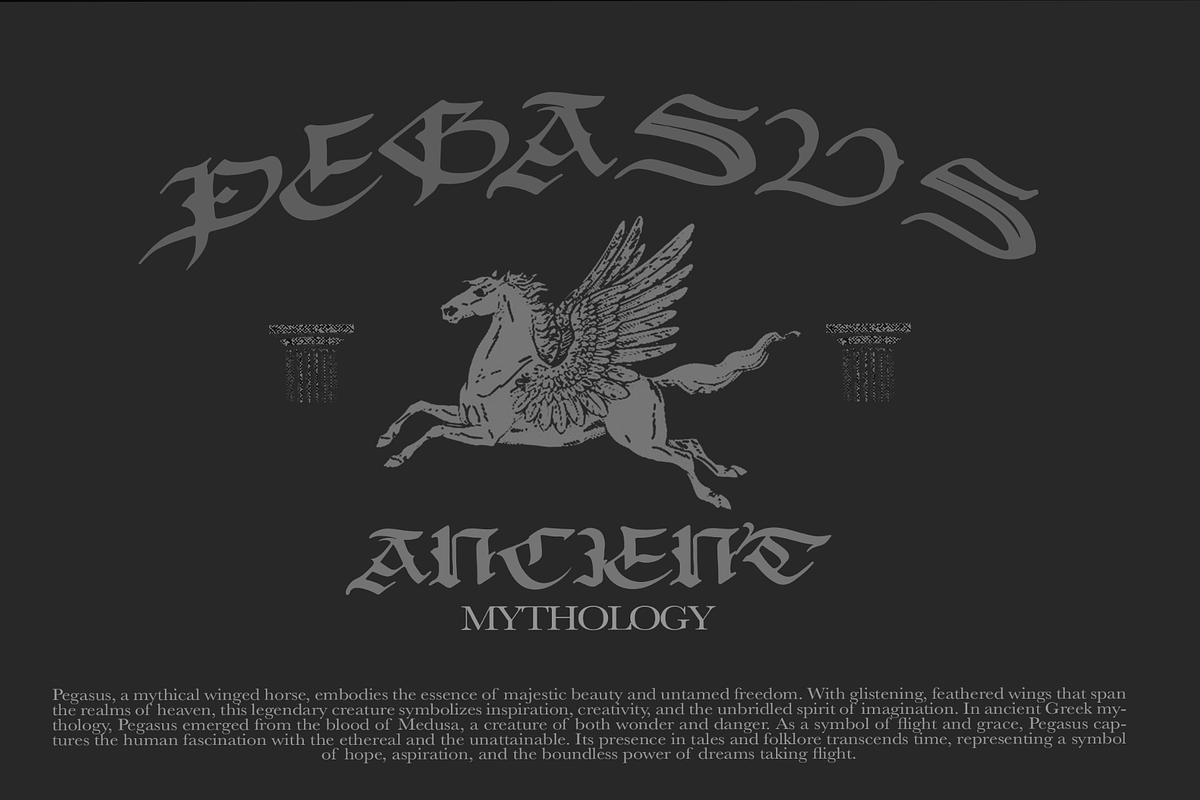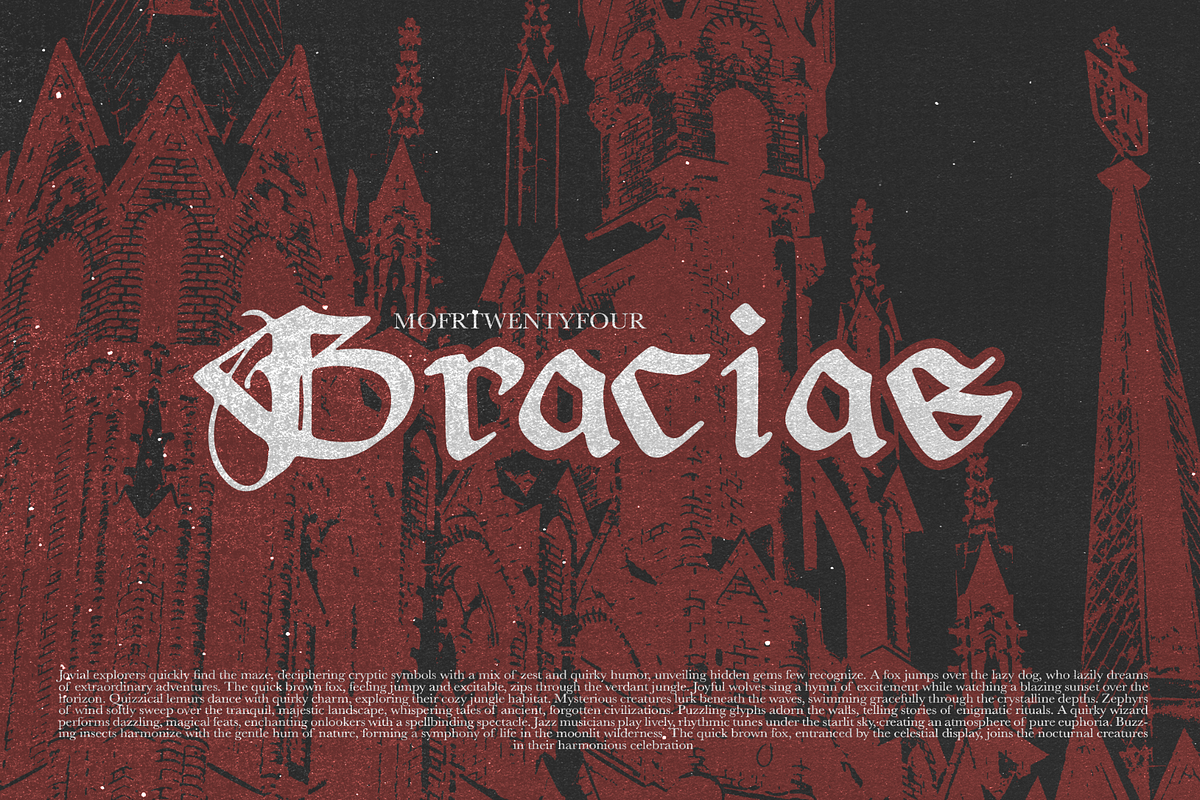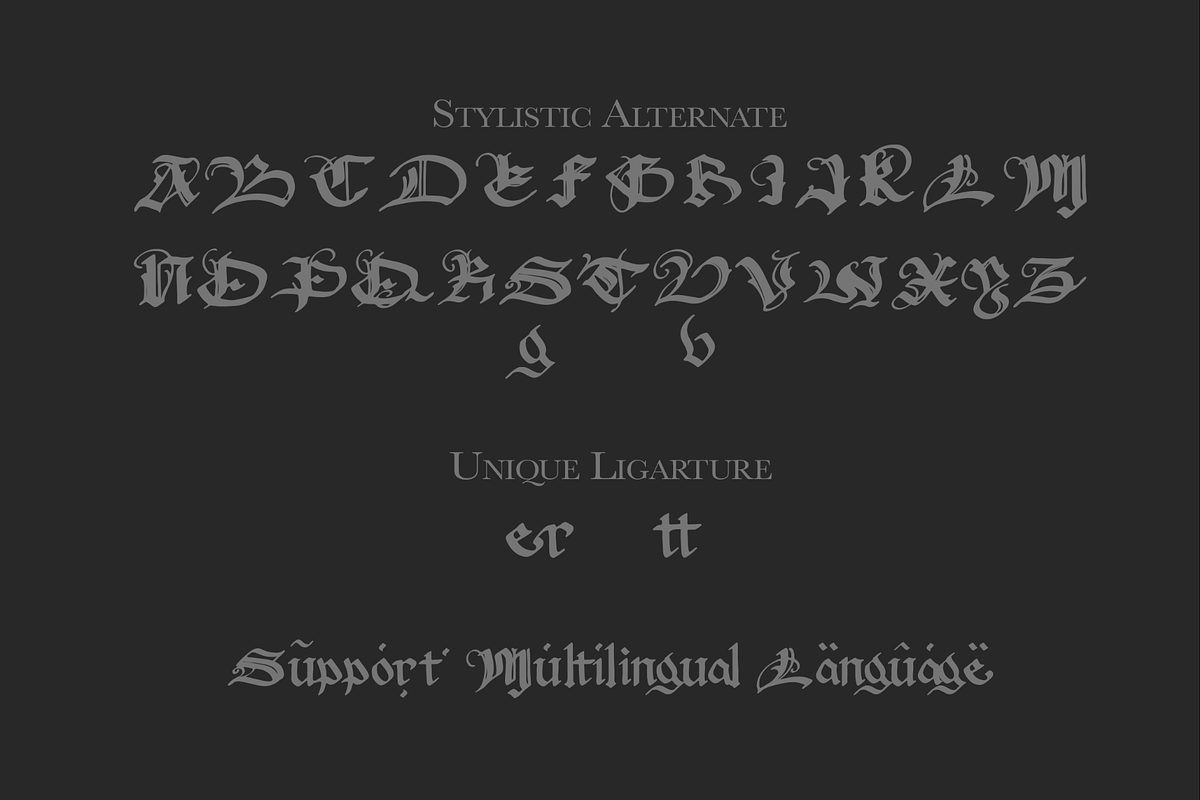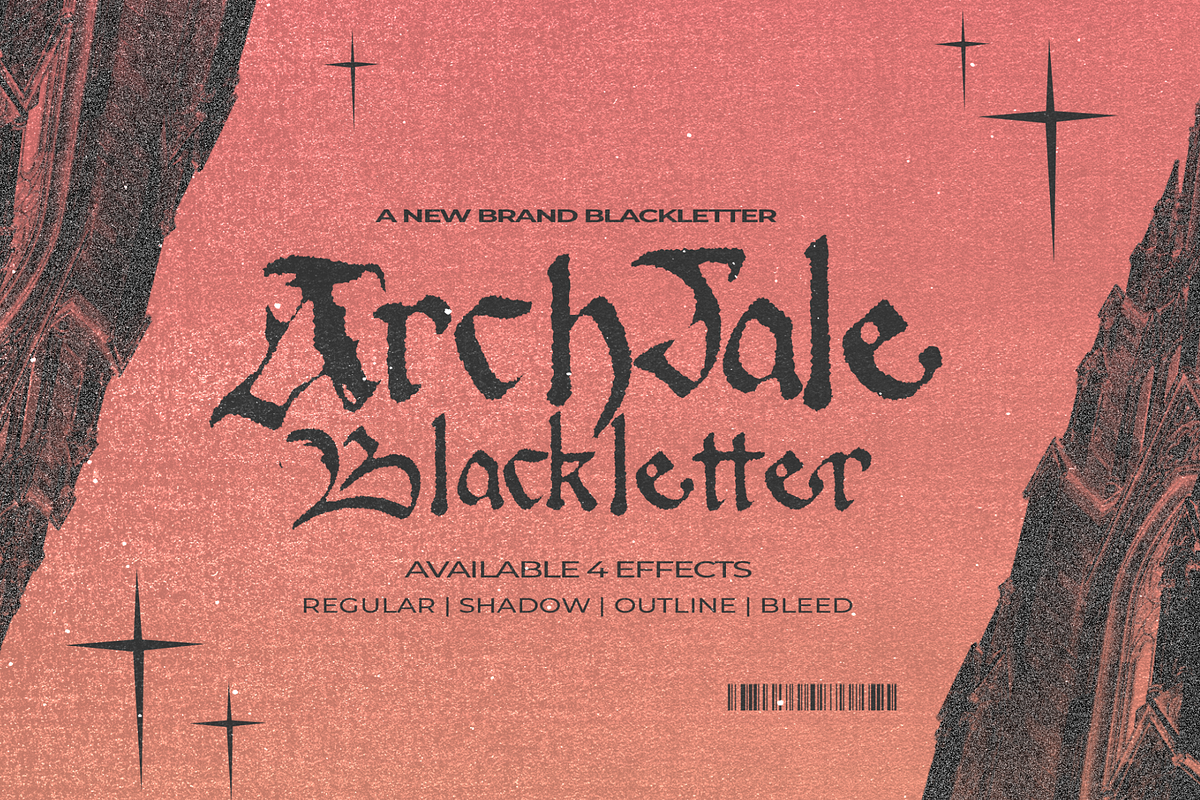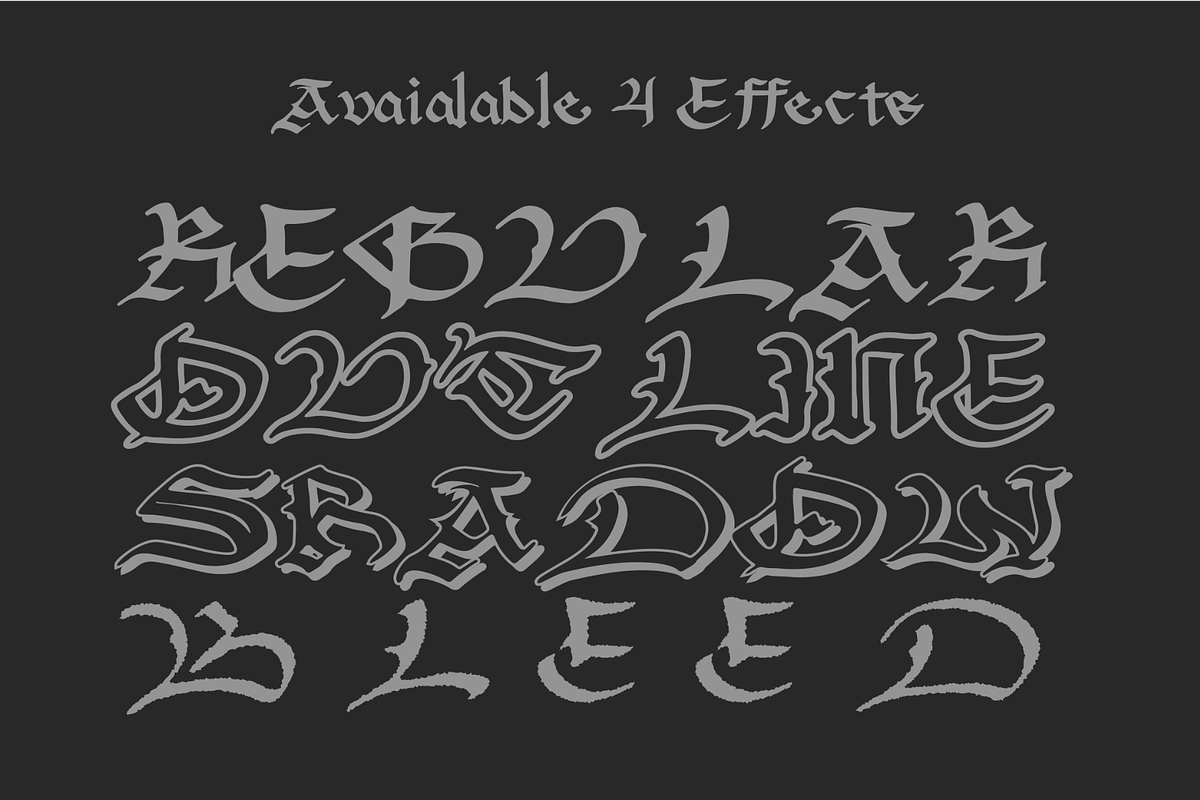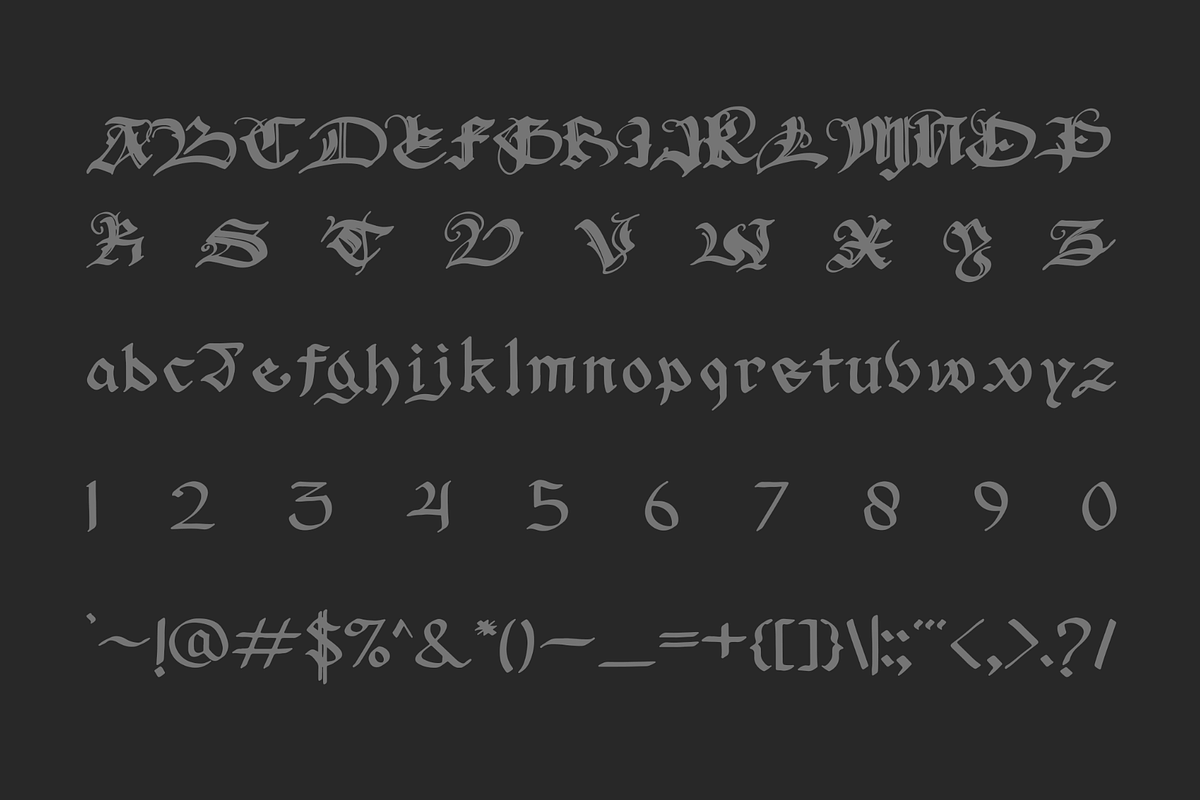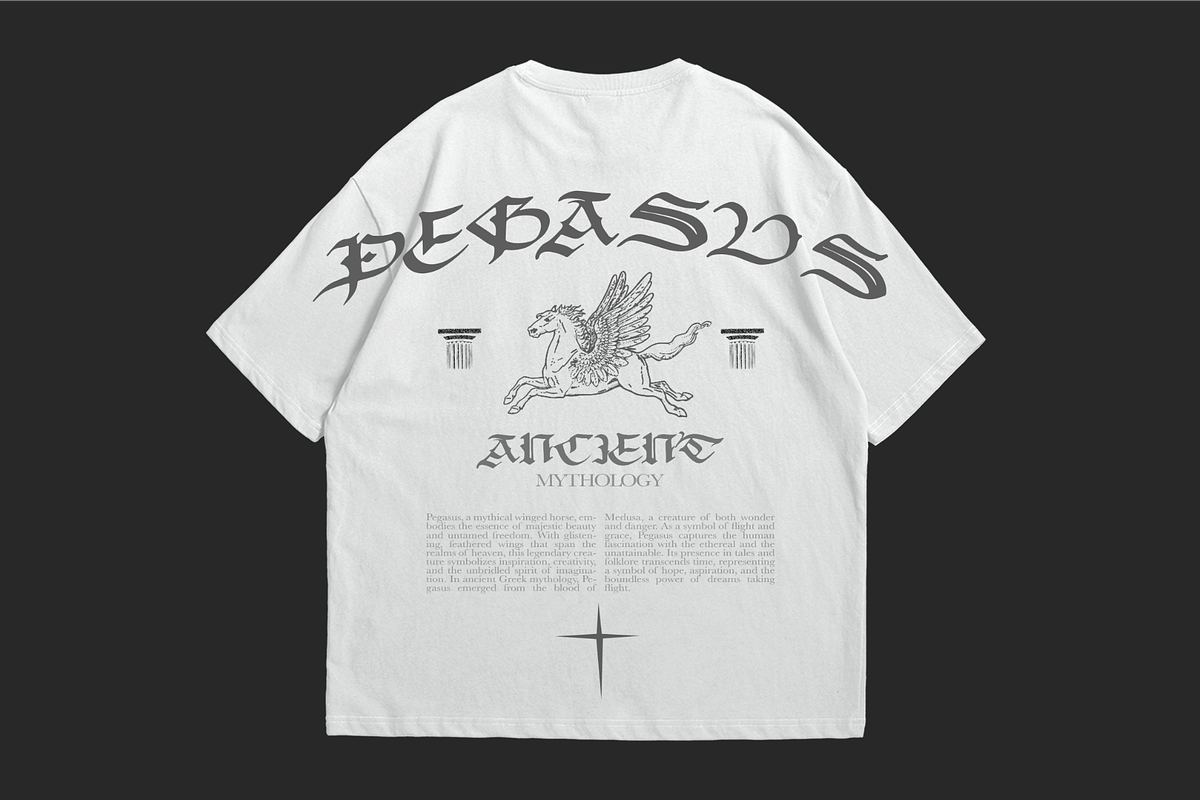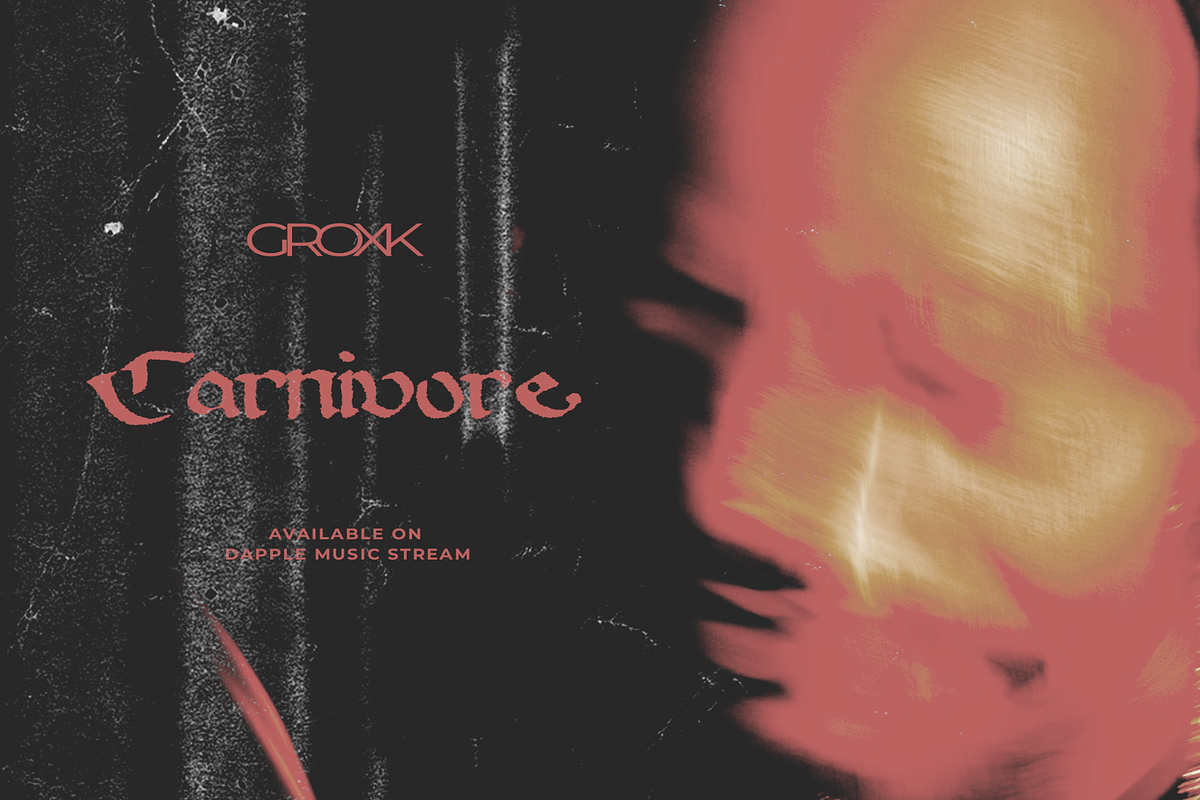
Archdale Blackletter: Vintage Bold
Meet Archdale Blackletter, a stout yet vintage-styled typeface steeped in gothic elegance. Taking its cues from historic bastarda scripts, this font presents a formidable assortment of four unique renditions: Regular for a touch of tradition, Outline to infuse a contemporary angle, Shadow to inject depth, and Bleed to serve a dash of daring. Perfectly suited for an array of applications - from branding and streetwear to book covers, headlines, album covers, and versatile logotypes - Archdale Blackletter is your key to a classic, enduring aesthetic. Capture the magic of timeless design with this unique typeface.